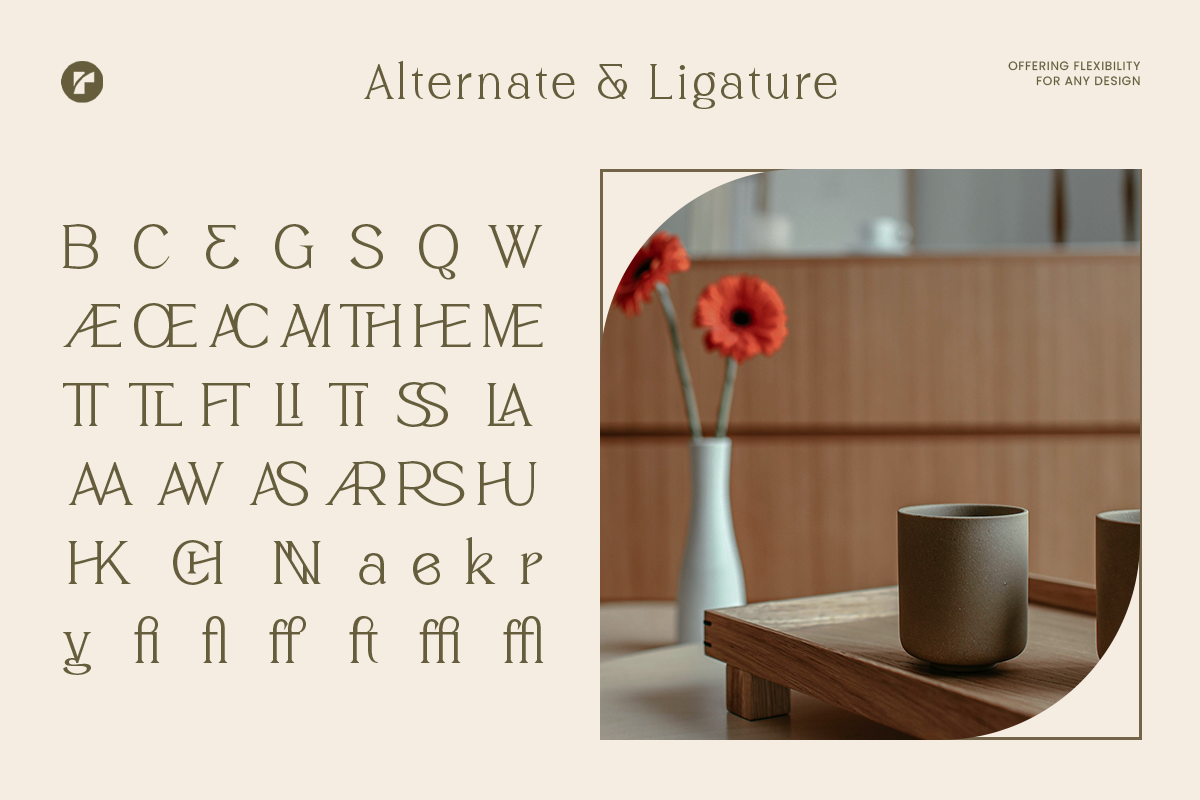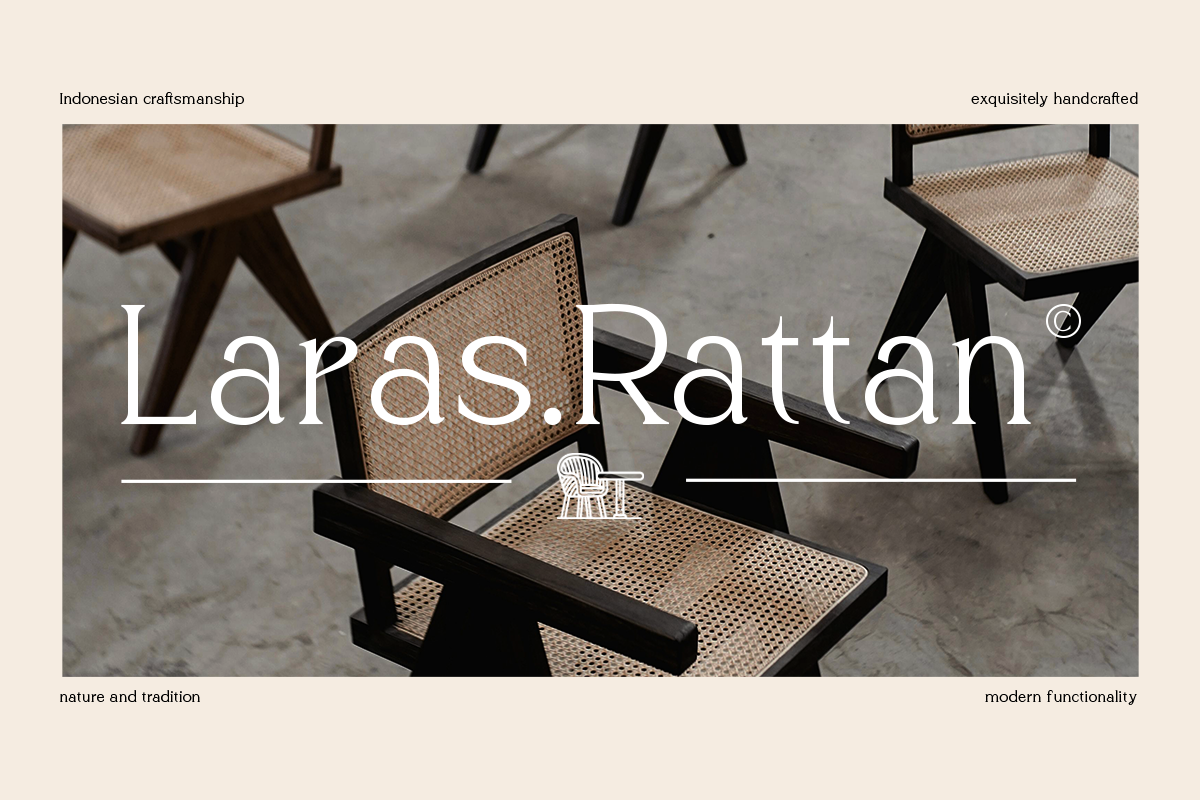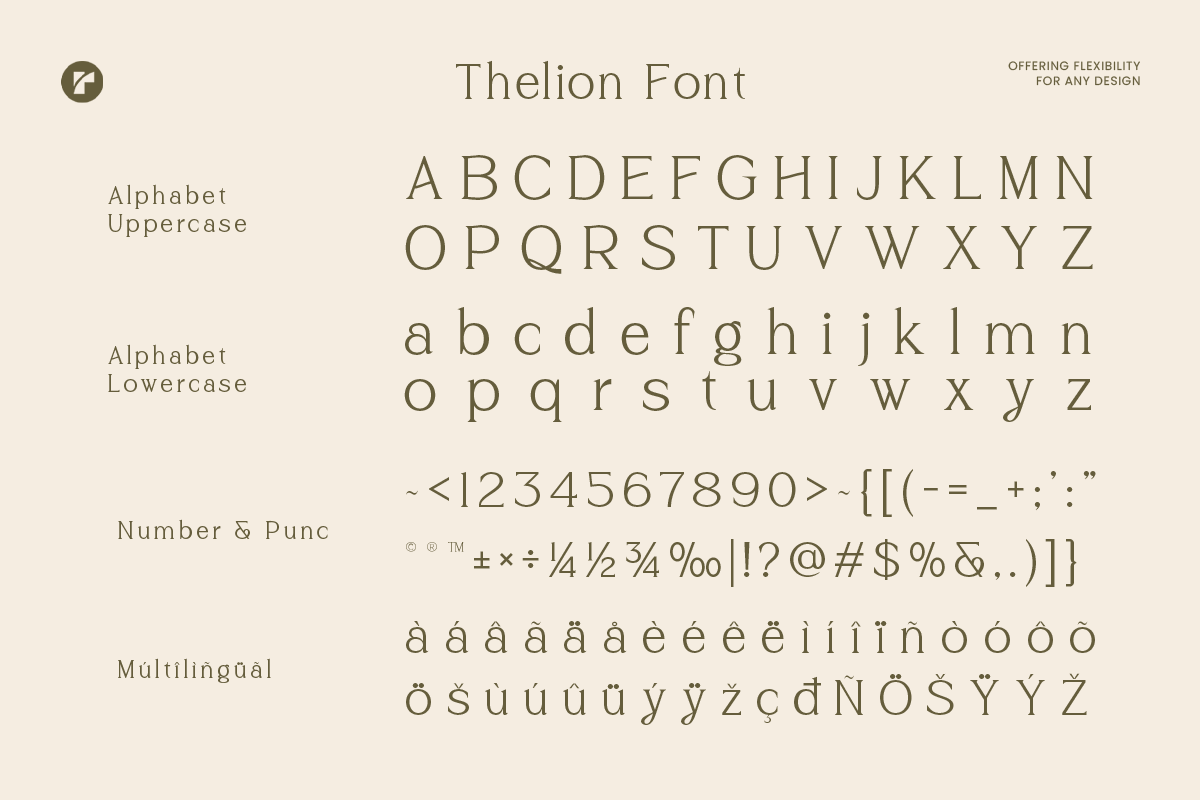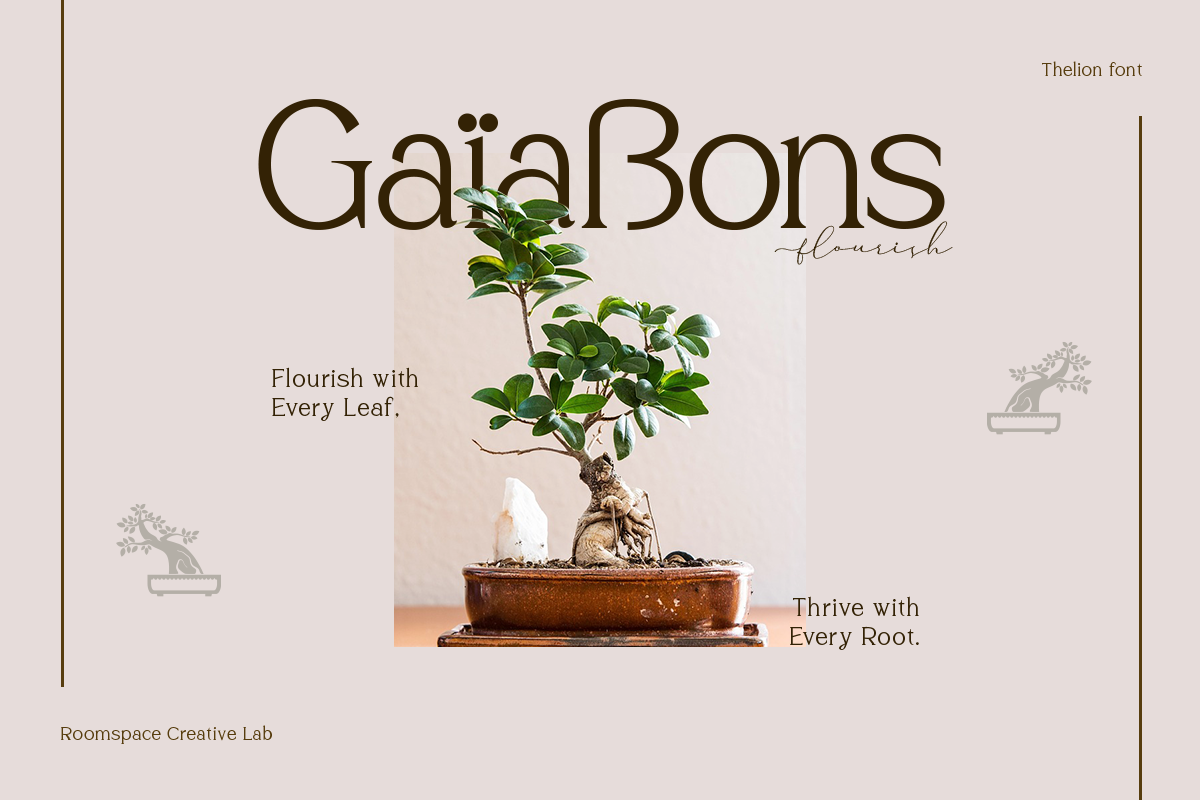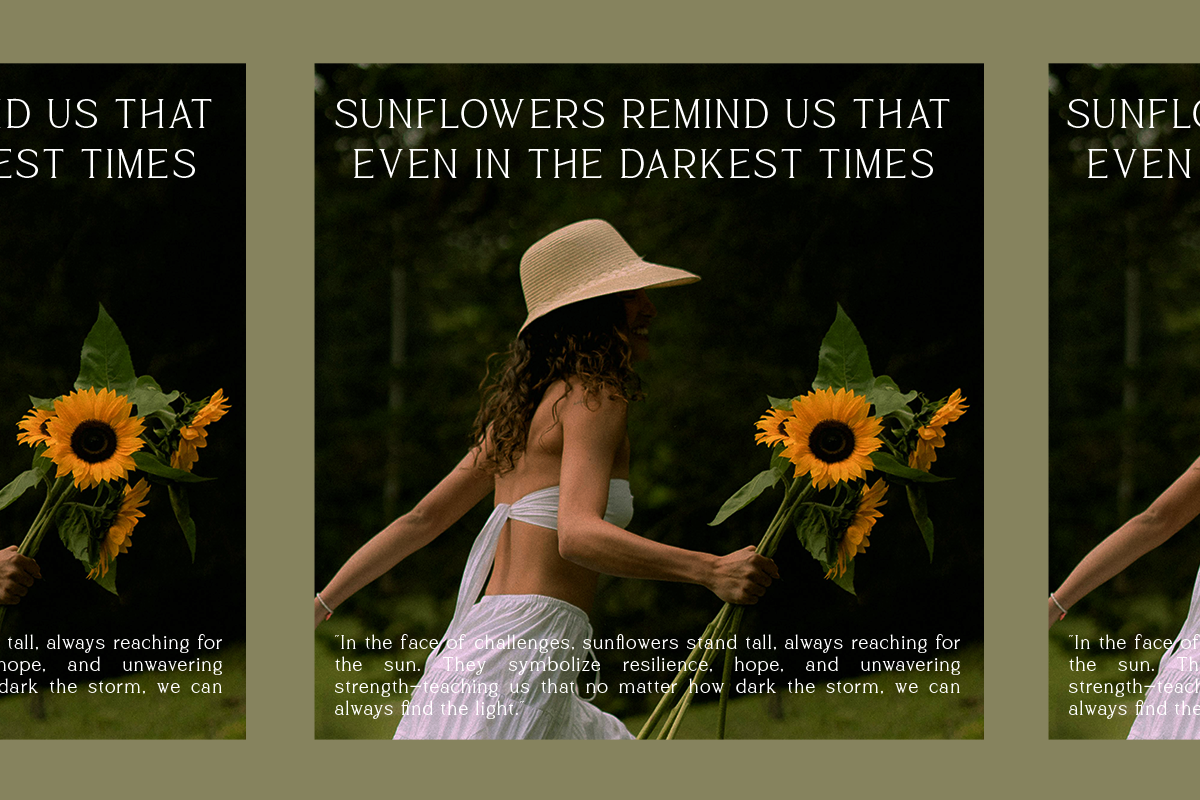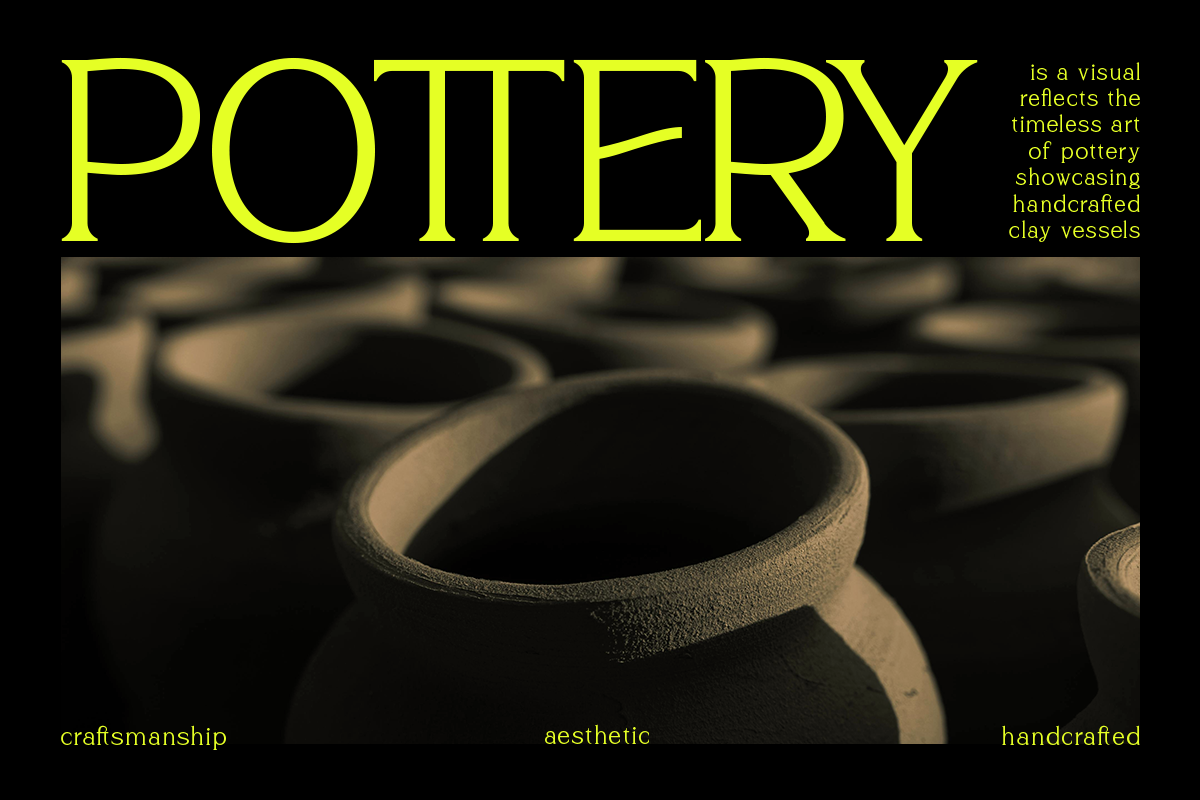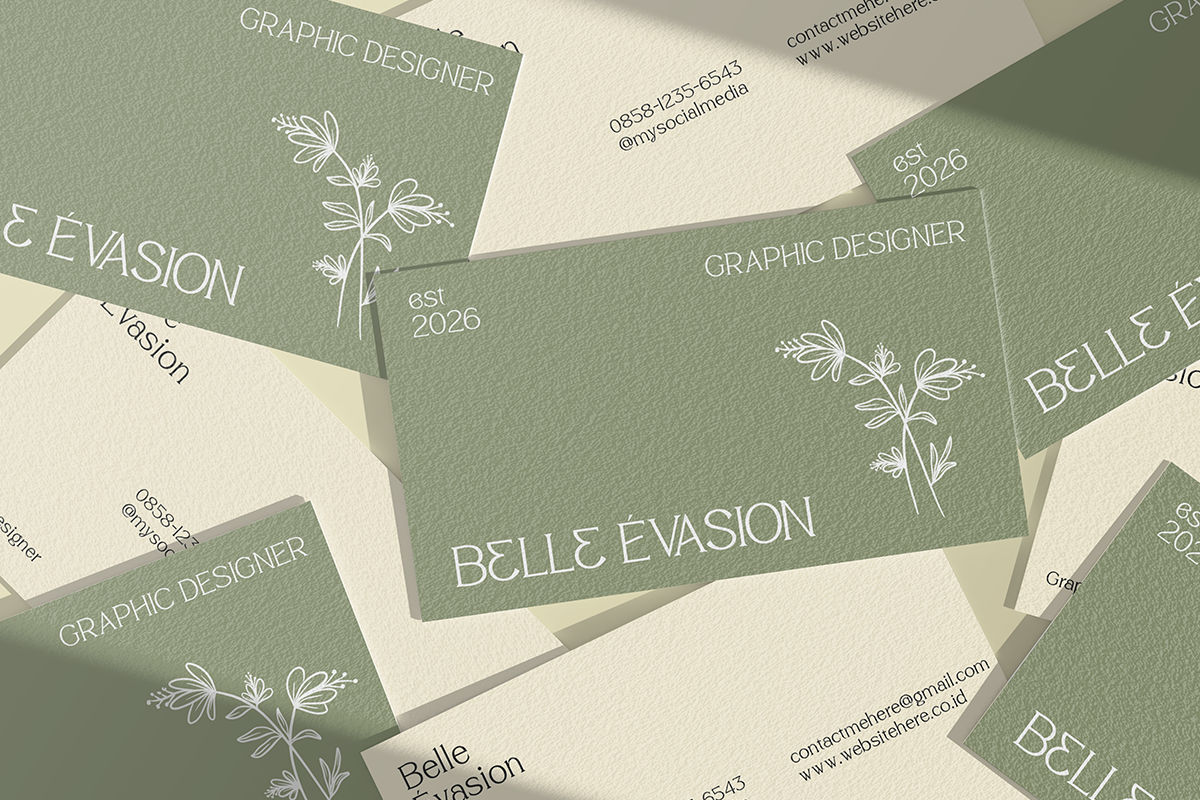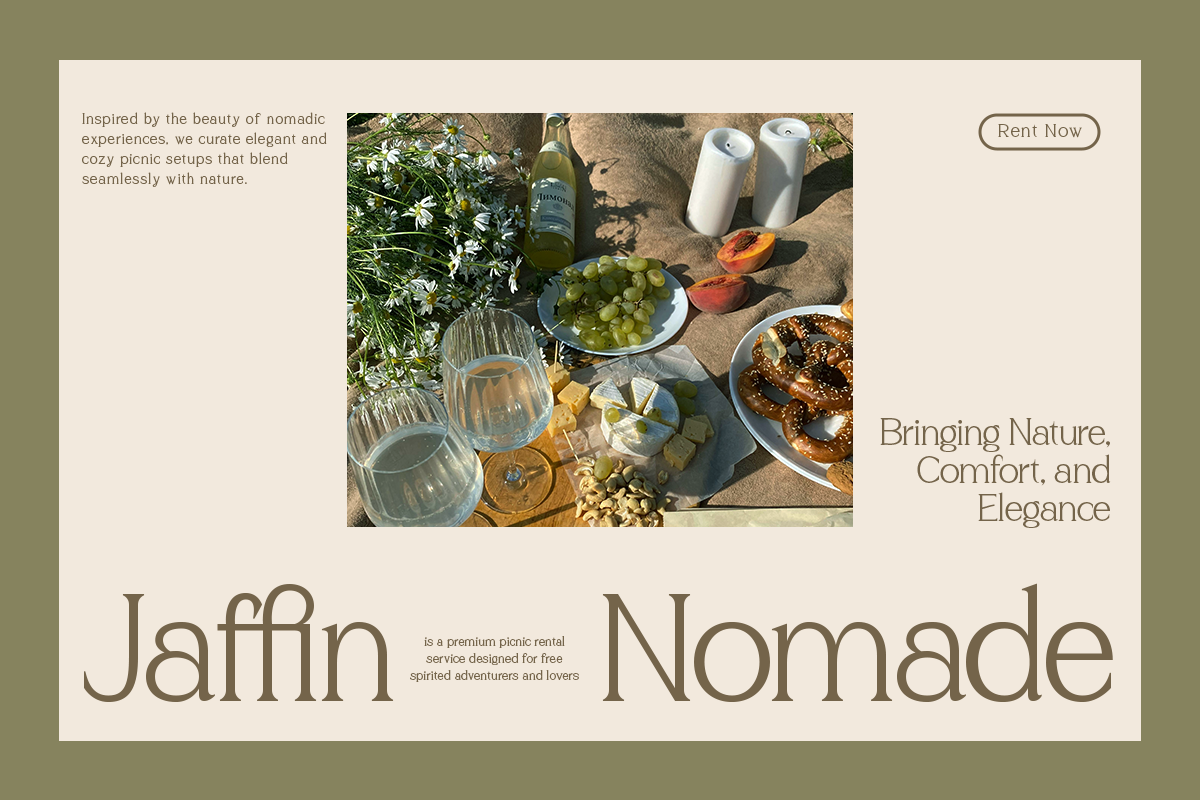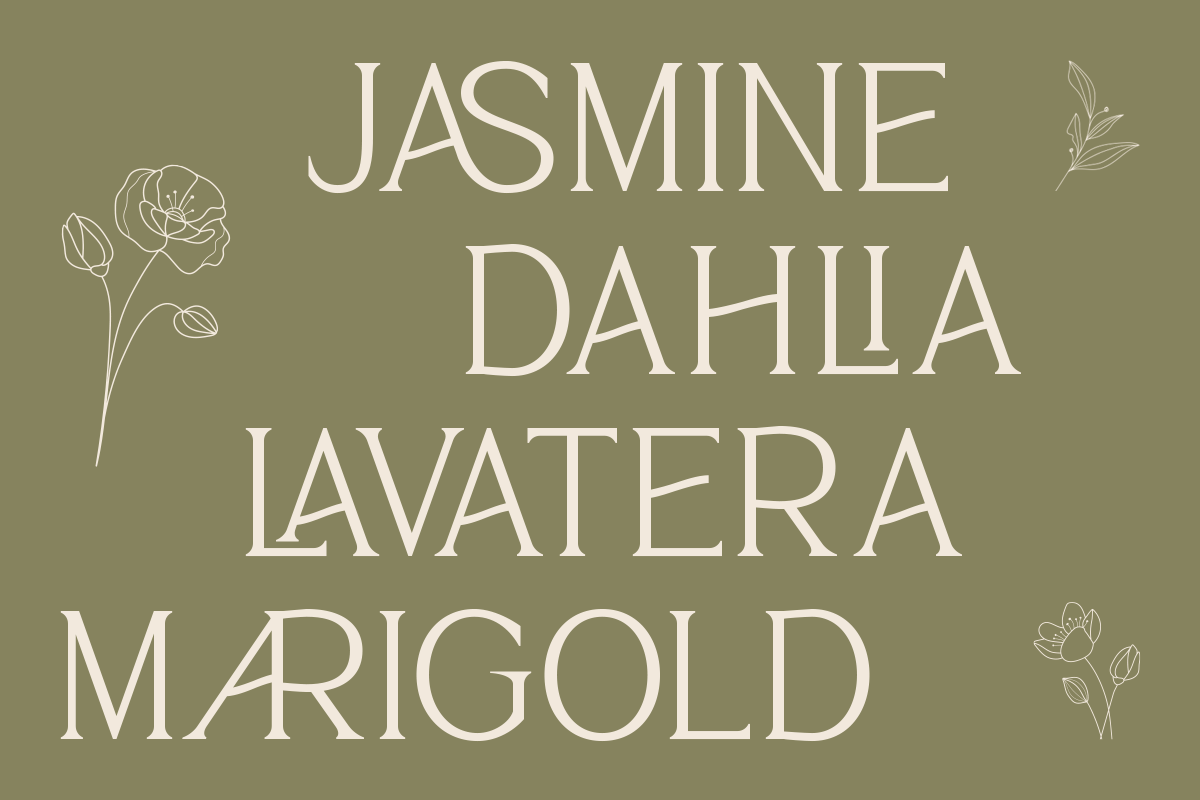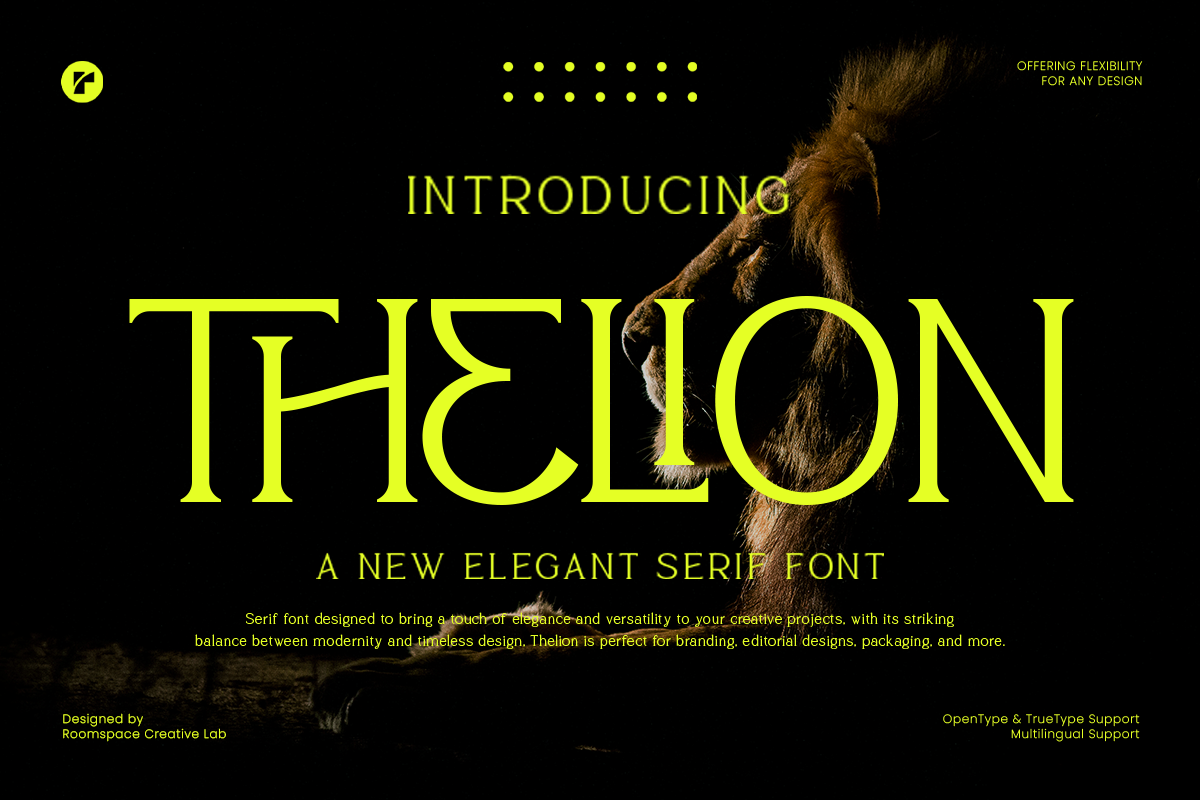
Thelion - Elegant Serif Font
Thelion is a beautifully crafted serif font that exudes elegance and sophistication. Designed with a perfect blend of modern refinement and timeless charm, Thelion is an excellent choice for branding, luxury packaging, editorial layouts, and wedding invitations.
With its graceful letterforms and unique details, Thelion brings a sense of exclusivity and style to your designs. This font features a balanced contrast, refined curves, and subtle decorative touches that make it stand out effortlessly, designing an elegant magazine layout, or creating eye-catching social media graphics, Thelion adds a touch of sophistication that captivates the audience.